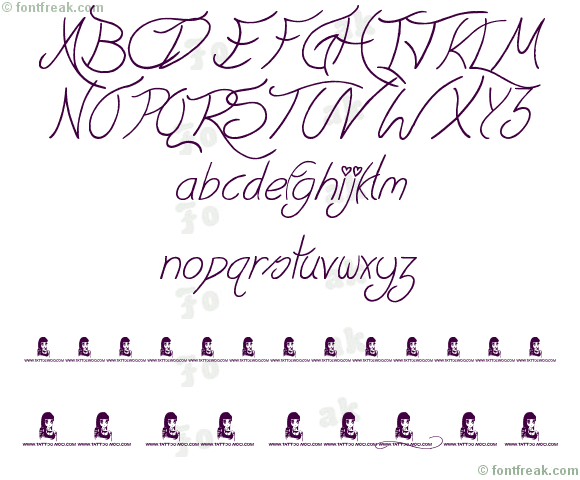
Cheese Cake)
The Cheese Cake) font, designed by Jonathan S. Harris, is a delightful handwritten style that exudes charm and personality. This decorative font combines a playful, casual aesthetic with artistic flair, making it an excellent choice for various creative projects. Its stroke weight is light to medium, creating a friendly and approachable appearance. The letters feature a slight contrast, with some playful flourishes and curves that add to the overall whimsy of the design. The spacing between characters is well-balanced, ensuring readability while maintaining a relaxed feel.
This font is versatile and can be used in several contexts. It’s particularly well-suited for wedding invitations, where its elegant yet informal style can enhance the overall theme. Additionally, Cheese Cake) works wonderfully for restaurant menus, providing a warm and inviting touch that can make any dish feel special. It can also shine in branding for food-related businesses, such as bakeries and cafés, where the playful tone can attract customers. Content creators will find this font ideal for social media graphics, especially those aimed at lifestyle or culinary themes, as it conveys a sense of fun and creativity.
What sets the Cheese Cake) font apart is its ability to blend elegance with a lighthearted spirit, making it a standout choice for any design that aims to evoke warmth and friendliness. Whether you're crafting a special invitation or designing eye-catching promotional materials, this font is sure to leave a lasting impression.